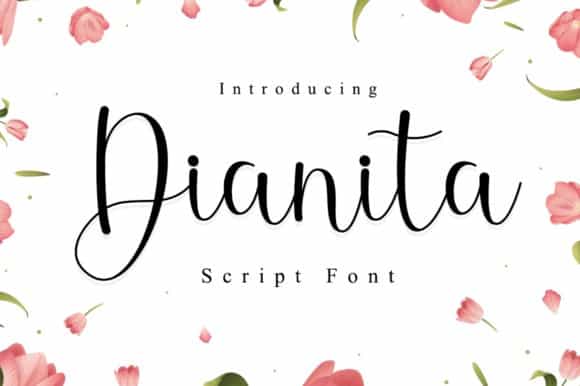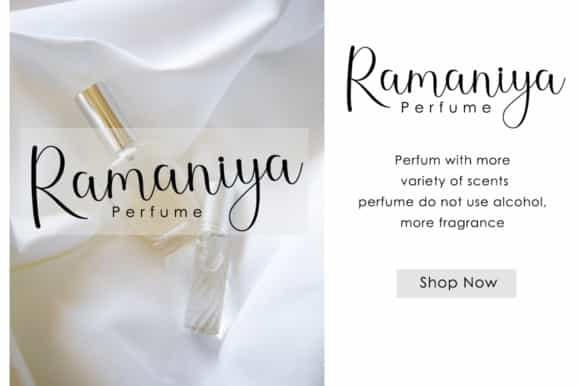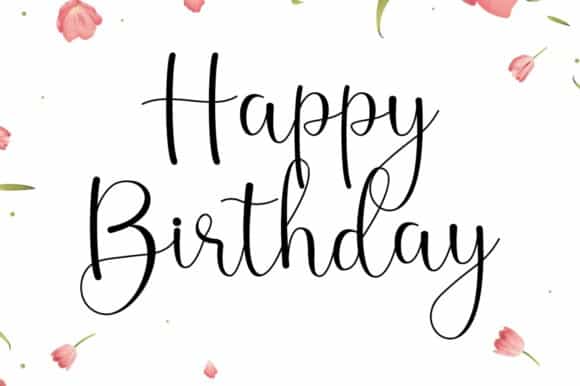
Dianita – Script This Font will be perfect on all your designs, invitation, book cover, branding materials and logo’s as well t-shirt or poster design other than that.